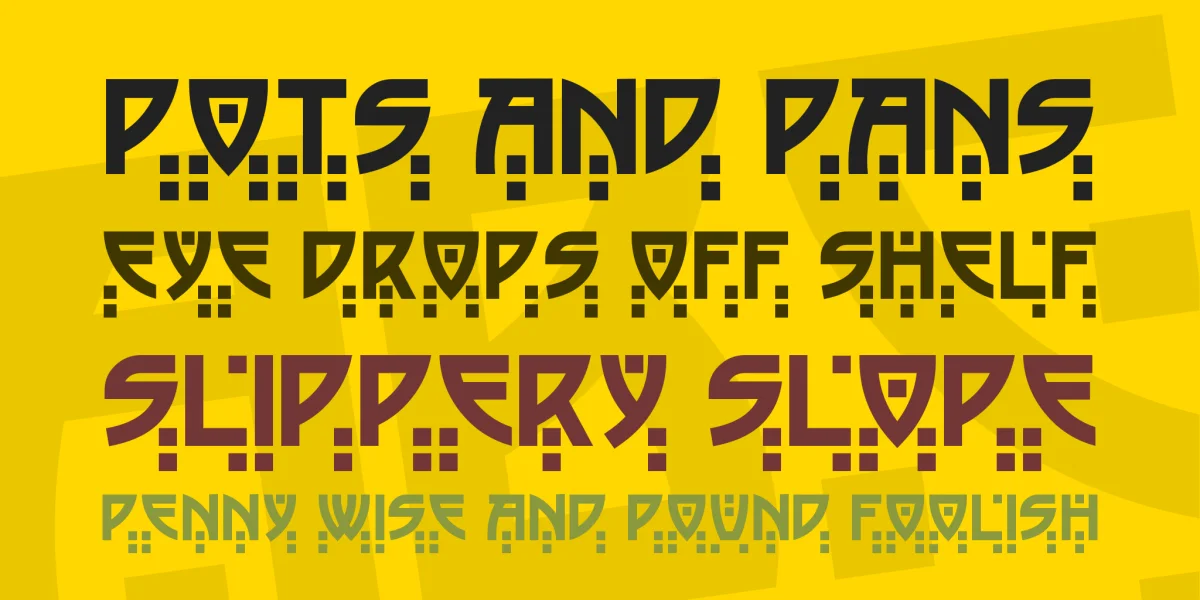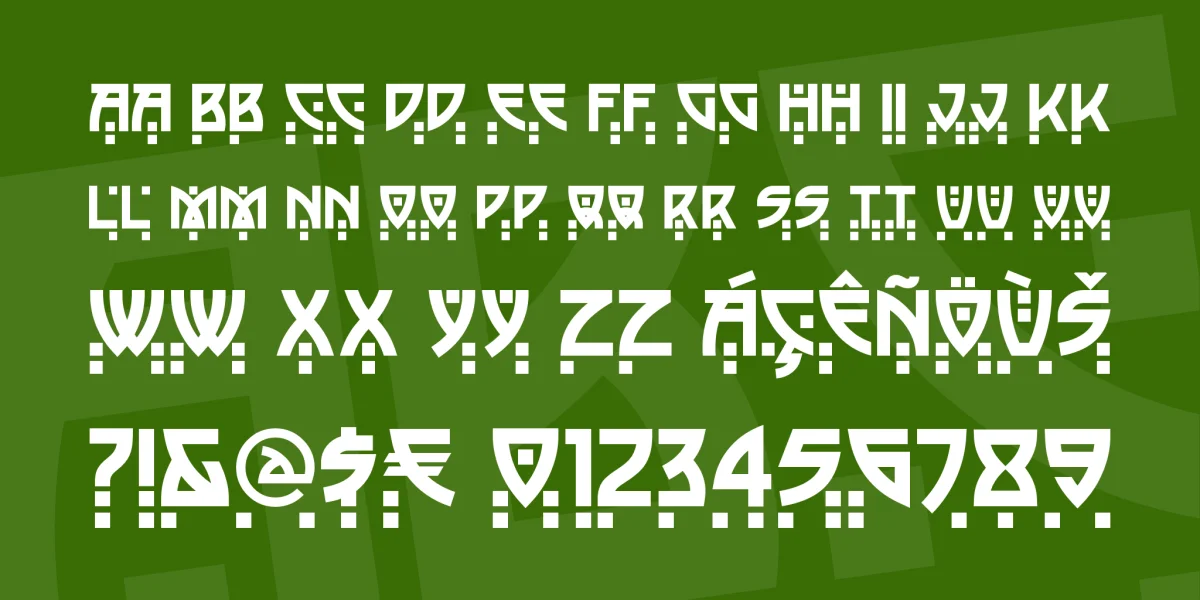
An Art Nouveau font based on the works of Glasgow artist and designer Charles Rennie McIntosh and named, for no particular reason, after a town in Pennsylvania I have never been to, but I really like the name.